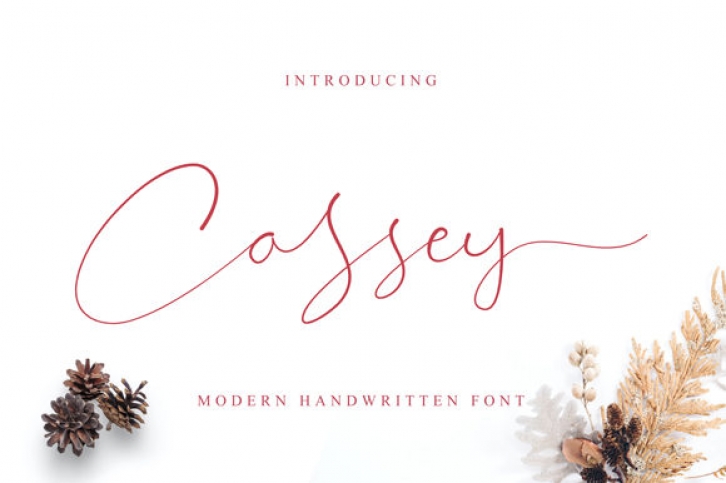
Cassey feels equally charming and elegant. This thin, smooth and stunning handwritten font is a stylish homage to classic calligraphy.
It will elevate a wide range of design projects to the highest level, be it branding, headings, wedding designs, invitations, signatures, logos, labels, and much more!